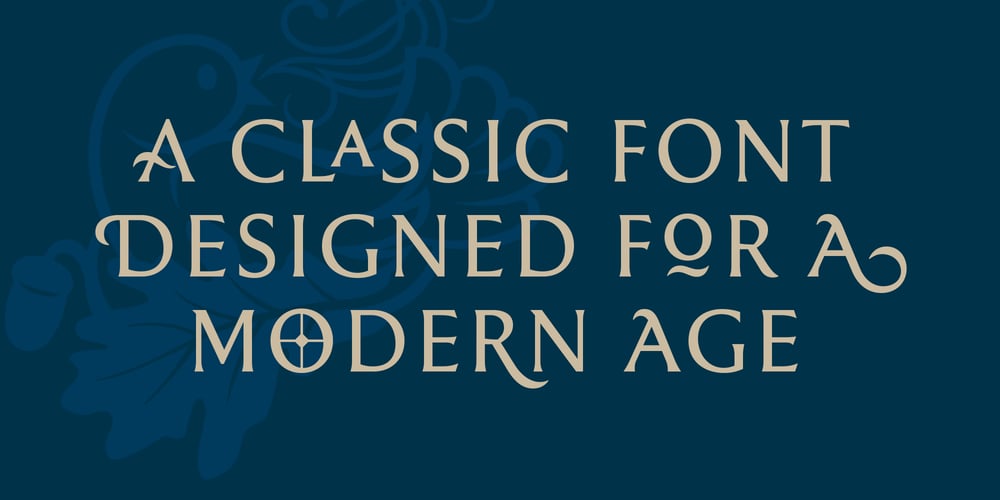
Rahere Roman Display Font Family was designed by Michael Gills and published by ULGA Type. Rahere Roman Display contains 1 styles and family package options. Rahere Roman Display is an elegant design with flared stems and subtle old style features, influenced by Berthold Wolpe’s wonderful Albertus font and (to a lesser extent) fonts based on Roman square capitals. It’s a classic design for the modern age, appealing to serious typographers, graphic designers and anyone looking for a beautiful, multipurpose font that also offers value for money. Originally conceived as a display companion for the Rahere Sans typeface family, Rahere Roman harmonizes perfectly with its sans counterpart: use it for headings, sub-headings or pull-out quotes. Want an eye-catching introduction? The small caps have been sized to optically align with the x-height of Rahere Sans or start a paragraph with a swash drop cap. There are also ornaments and devices on hand to spice things up. Of course, Rahere Roman Display works beautifully as a standalone font too.Although predominantly a display font, with a quick flick of its lowercase switch, Rahere Roman transforms effortlessly into a readable text font. Like a Swiss Army Knife, this is a hugely versatile font, capable of conveying different messages from classic and romantic to historical and modern. It’s suitable for a wide range of applications including: branding, posters, advertising, packaging, labels, signage, wedding stationery, museums, art galleries and book covers.Weighing in at well over 2,000 glyphs, Rahere Roman contains a myriad of alternative characters (mostly capitals) including two sets of small caps that allow certain letter combinations – such as RO, LA, LI, TY, etc. – to mimic ligatures. The advantage of this is that if letter spacing is increased or decreased, the letter combinations aren’t fixed and can move too, which helps the space between letters to remain even. However, for lovers of ligatures there is still a bucketload of goodies to play with, including the obligatory ‘OO’ ligature. If that’s not enough, the font also contains start & end swashes, alternative numerals, seven ampersands, ornaments and devices. .ss01 – Initial swash capitals.ss06 – Superior small capitals (aligned to the cap height).ss07 – Small capitals (sitting on the baseline)